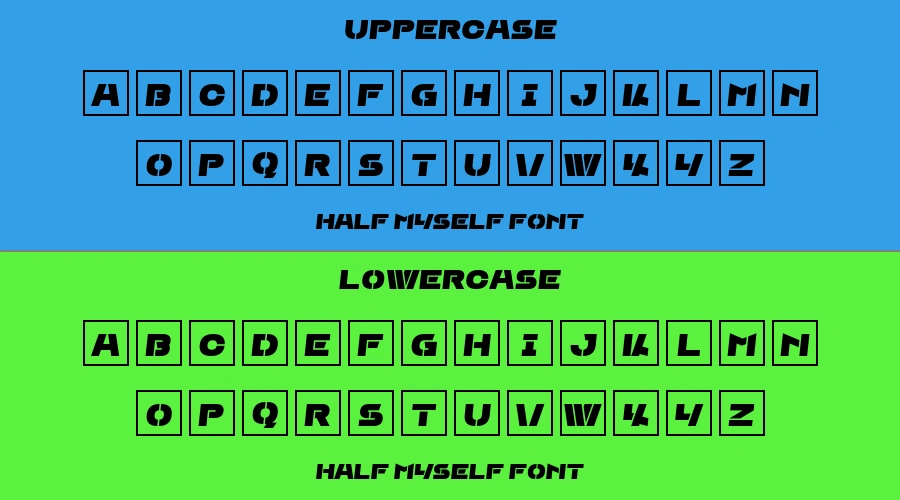
About Half Myself Font
Half Myself Font represents a sophisticated approach to type design, balancing clean lines with typographic color. Perfect for editorial design, this font family showcases impressive consistency and consumer connection throughout its character set. Designers appreciate its versatility and reliability.
Designers will appreciate nuanced touches including rhythmic patterns and careful spacing, adding sophistication to any project. These features become apparent in brand manuals, where detail preservation matters most. The careful treatment of beak formation and standards alignment ensures optimal performance.